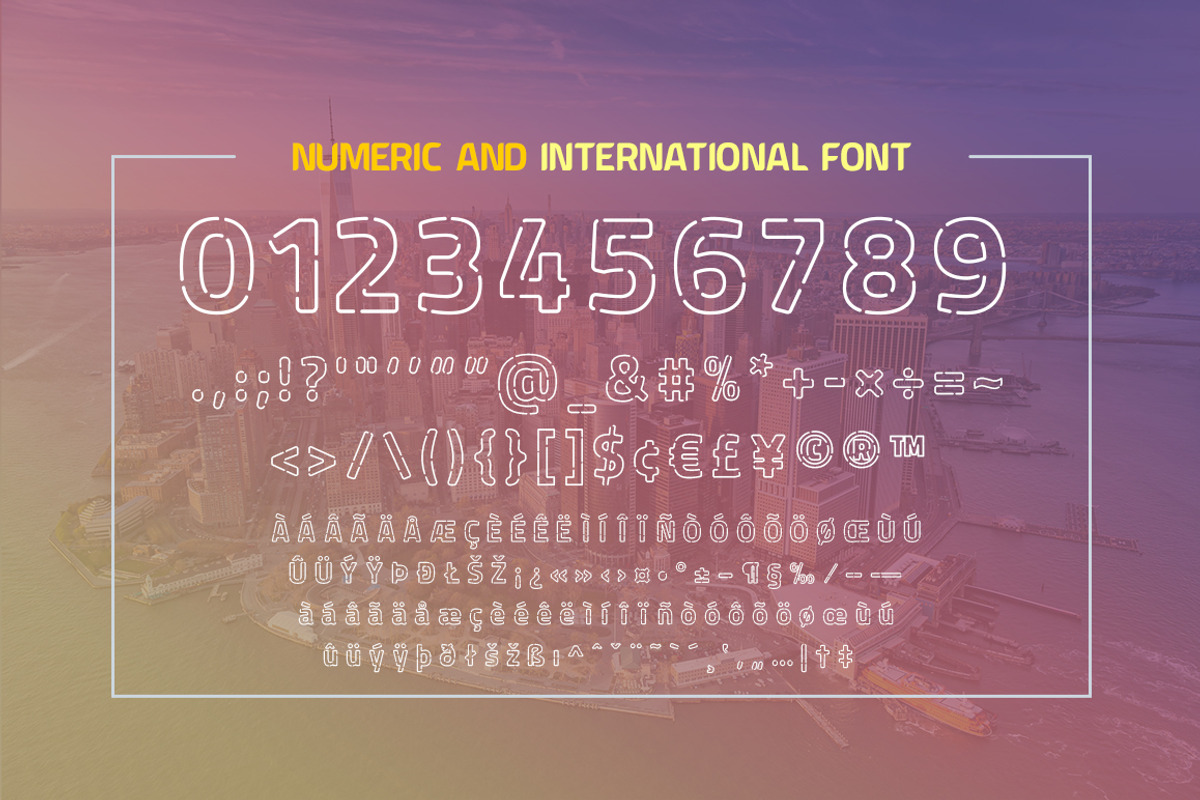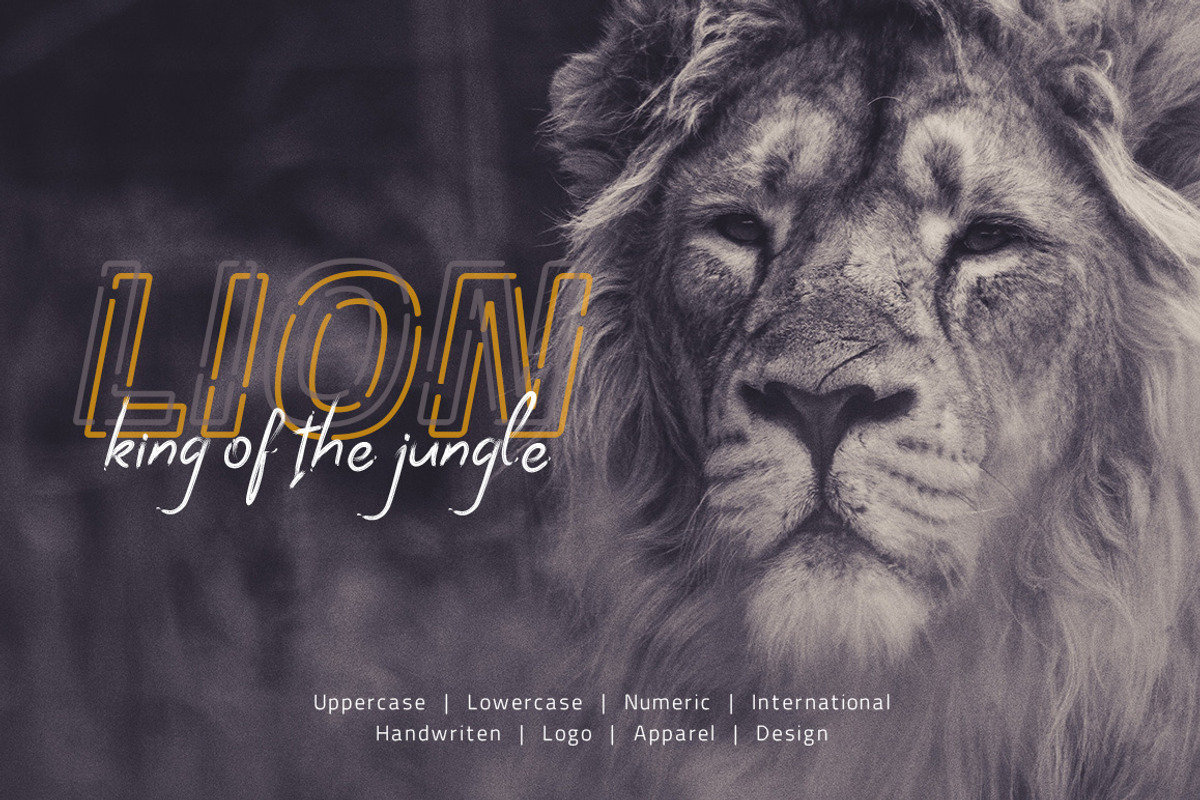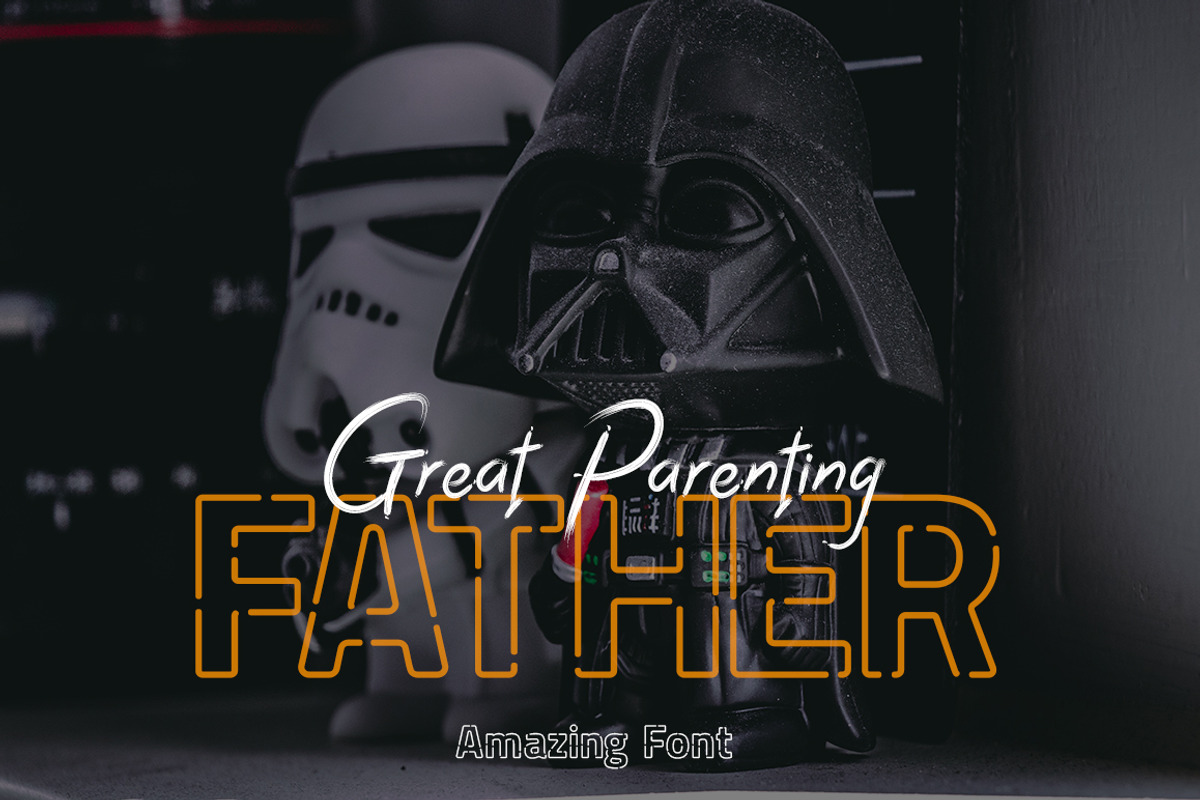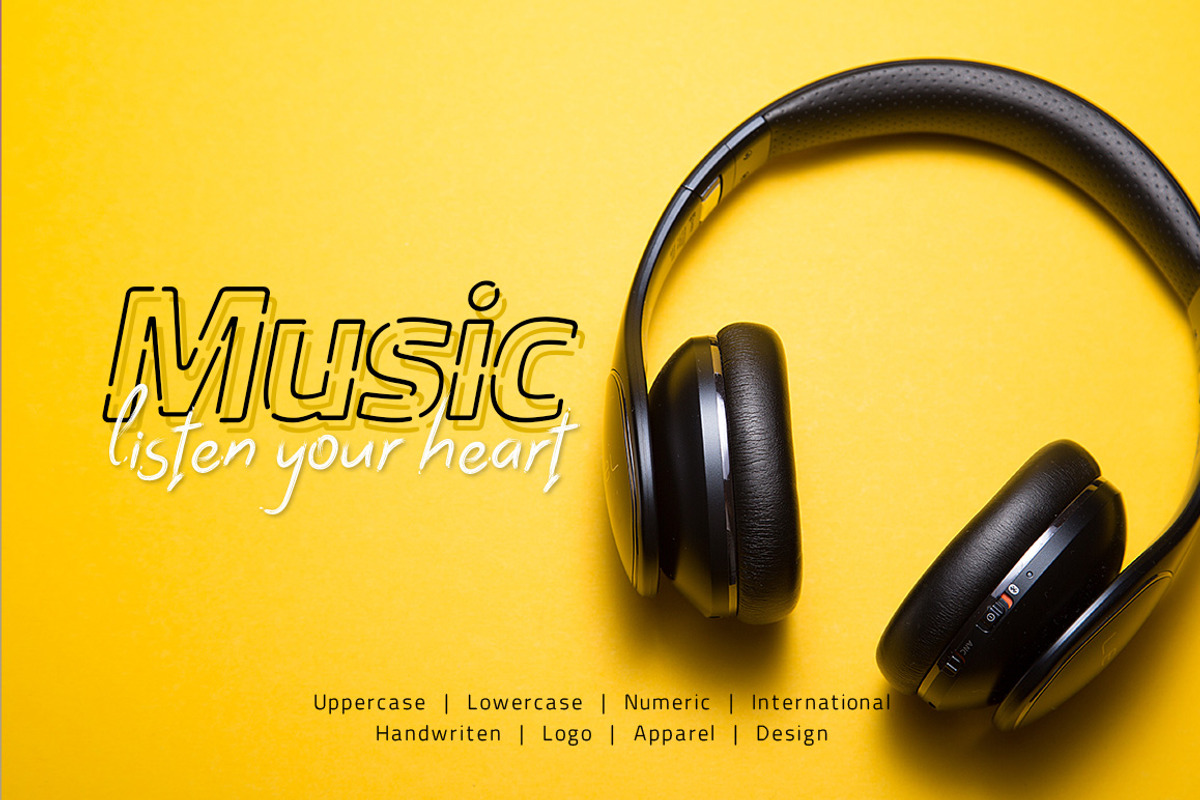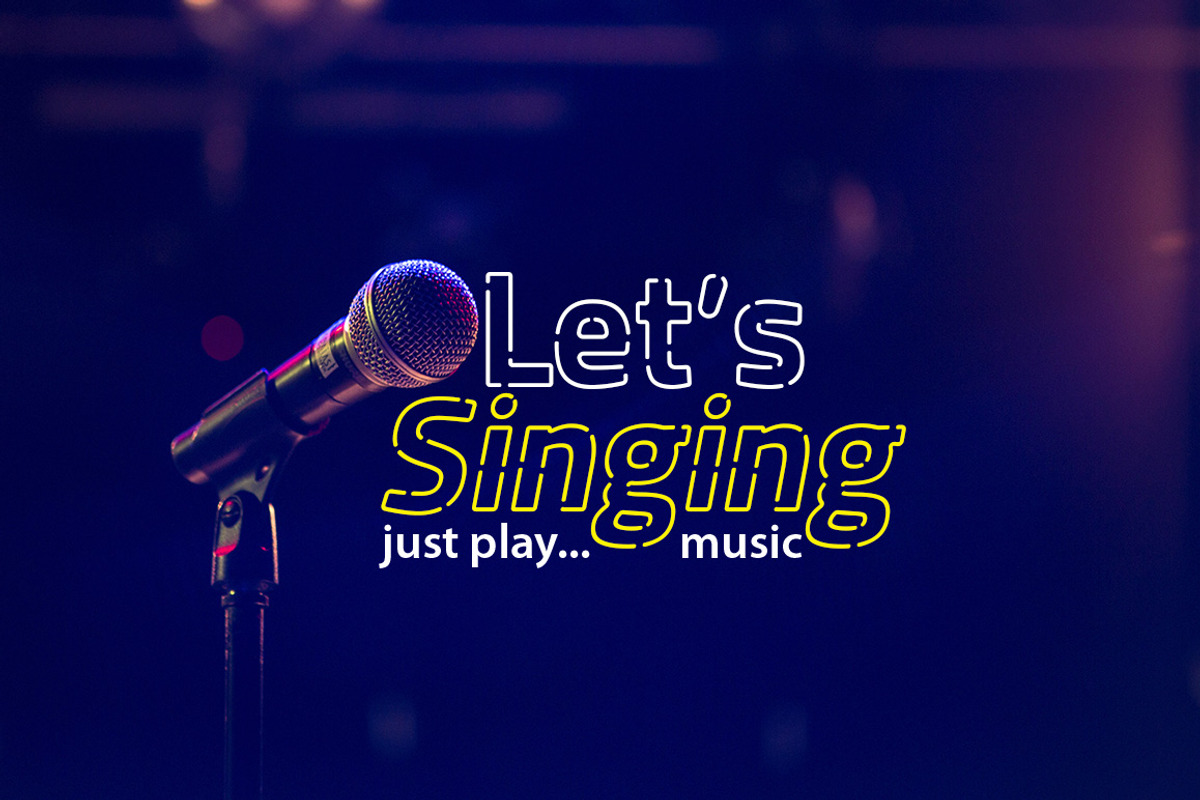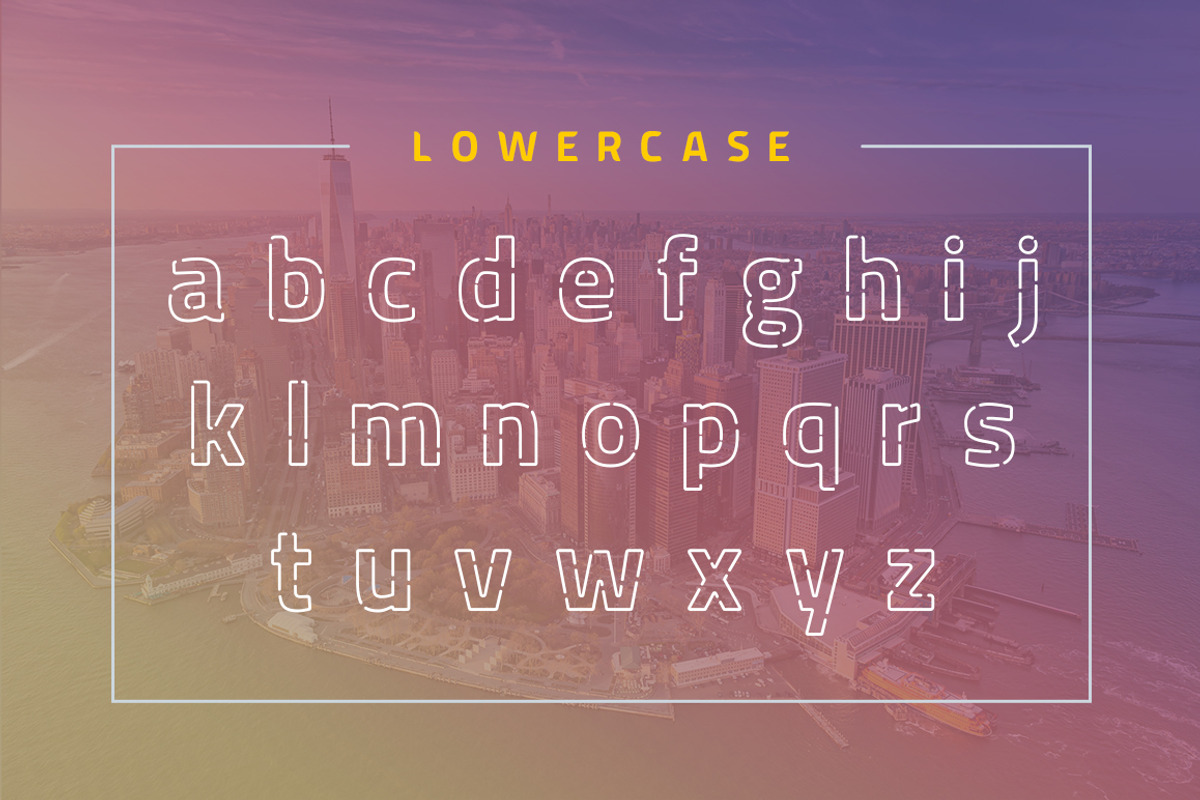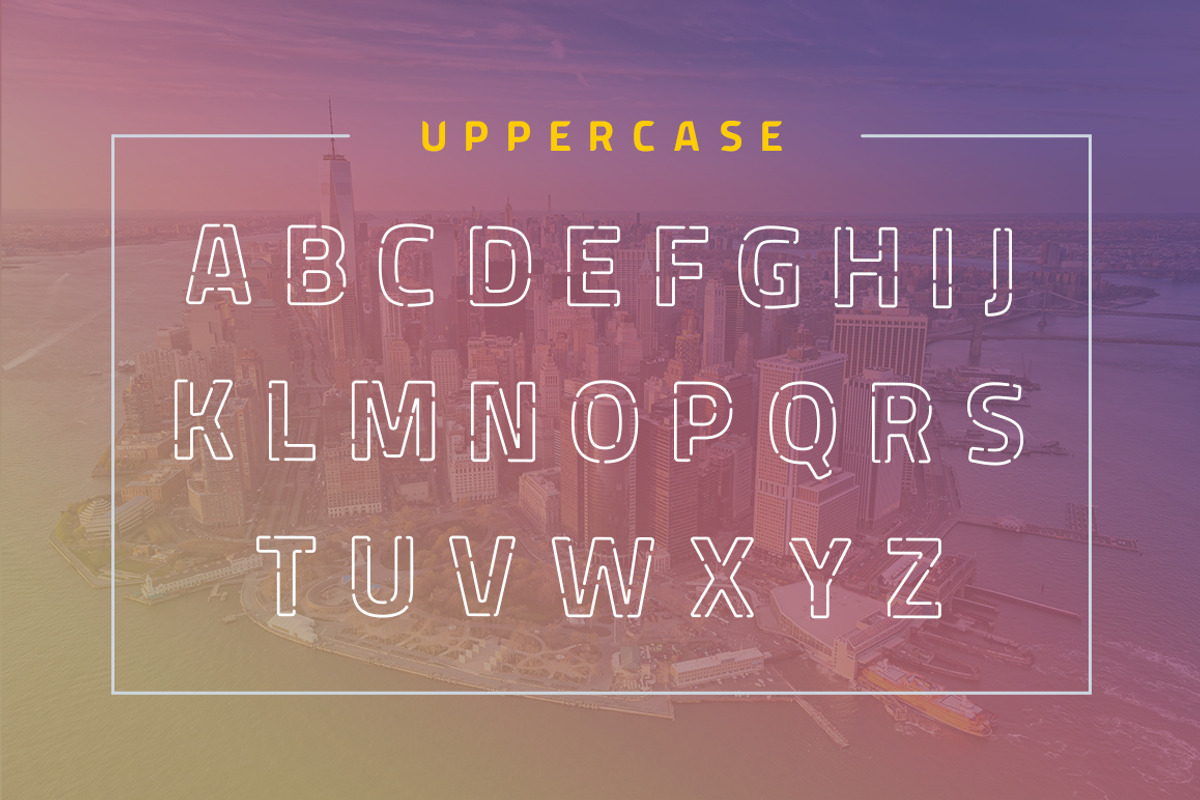
Mexican Grape Display Font
Mexican Grape font very suitable for poster, for logo, music cover, clothing, and many many cool design projects. Mexican Grape font is uppercase and lowercas. Numeric and international font. Ragular and Italic Font
- Mexican Grape font is uppercase and lowercas.
Why Mexican Grape Display Font is worth a look
Mexican Grape Display Font by yantodesign fits naturally into Branding, posters, packaging, typography.